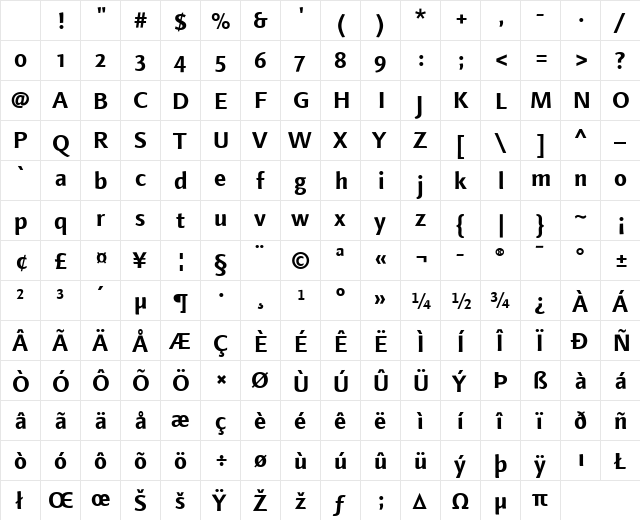
Complete LTFinnegan OsF Regular Bold glyph index. Displaying only characters natively supported by LTFinnegan OsF Regular Bold font.
LTFinnegan OsF Regular is a composed and adaptable typeface that performs quietly and consistently across a wide range of design contexts. Its bold stroke weight gives it real presence on the page.